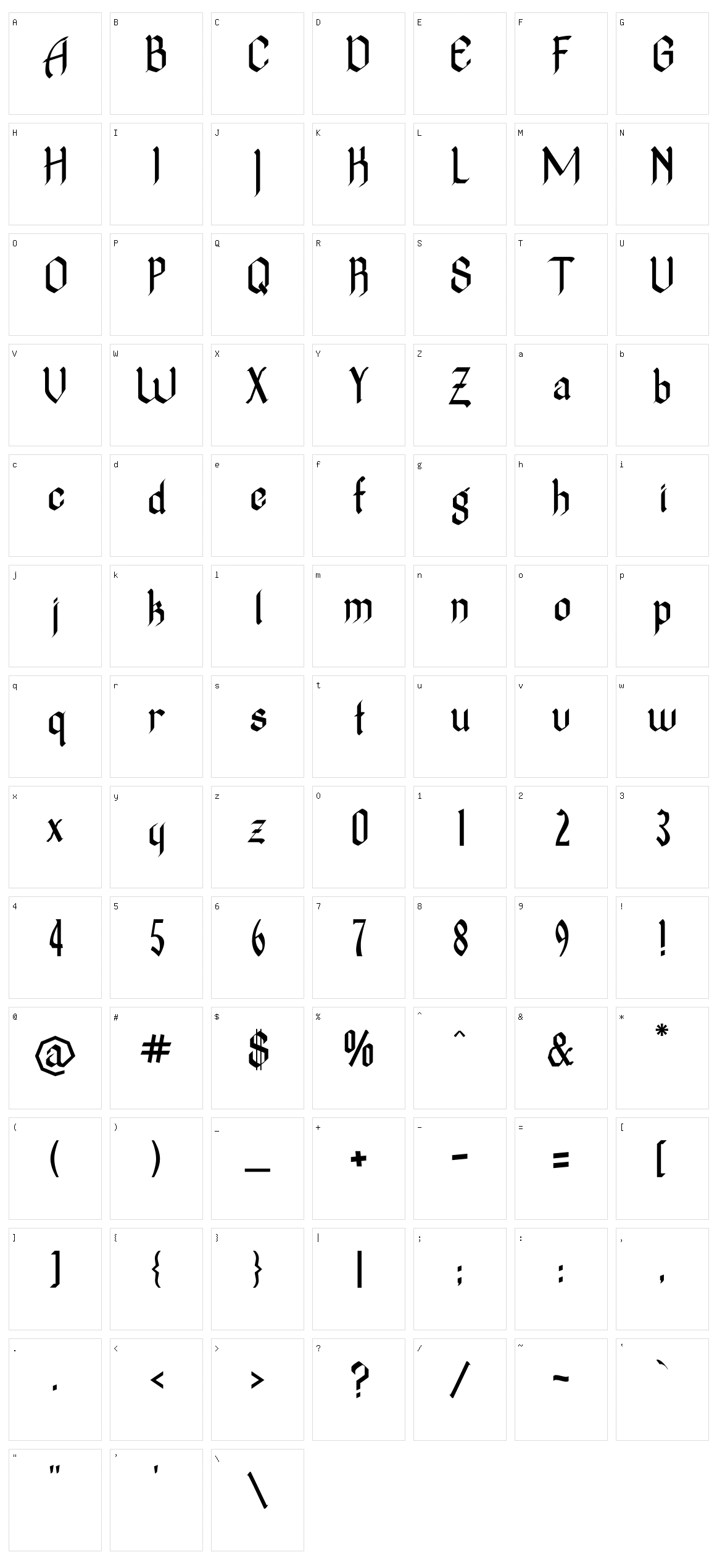
The Novice
Designed by: Pilaster Davy
The Novice is a modern blackletter font inspired by Illuminated Manuscripts, a misspent youth at rock concerts and a middle age addled by strong imported lager beer. I created it in a draughty unheated scriptorium by candlelight using only squid ink and a goose feather quill, dressed only in a rough horsehair cassock, then retired to the comfort of my studio to digitise the glyphs and make it usable for the modern world as a .ttf.